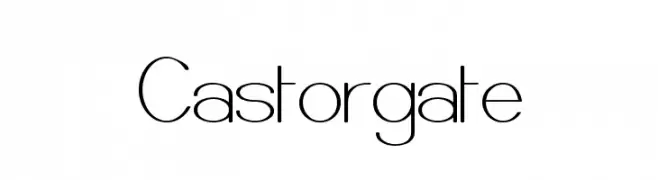
A modern, geometric font with consistent stroke width and rounded edges.
A modern, sleek font with tall, narrow characters and a clean, minimalistic style.
A modern, elongated font with rounded edges and a vintage touch.
A sleek, modern font with geometric lines and a minimalist aesthetic.